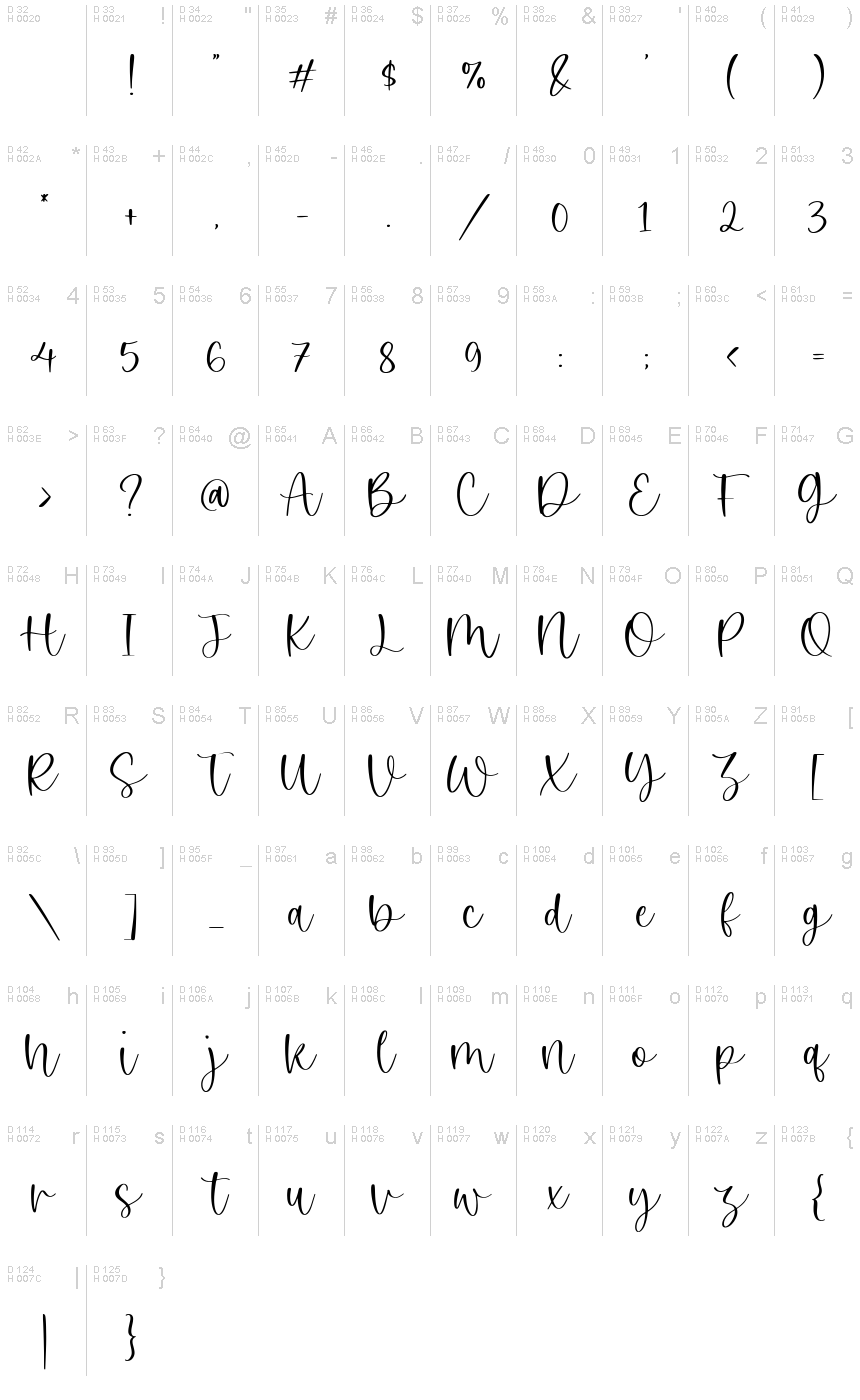
White Butter
White Butter, a creation by Timur Type, exudes an effortless elegance with its semi-light, handwritten style. The flowing strokes and subtle variations in thickness evoke the charm of personal correspondence, making it a delightful choice for invitations, greeting cards, and boutique branding.
Specially crafted to add a touch of individuality, White Butter's aesthetic is both inviting and distinctive. Its casual yet polished appearance ensures versatility across various creative platforms—from digital graphics to printed materials—offering designers a font that is as adaptable as it is visually engaging. With White Butter, embrace the warmth of handcrafted design in your next project.